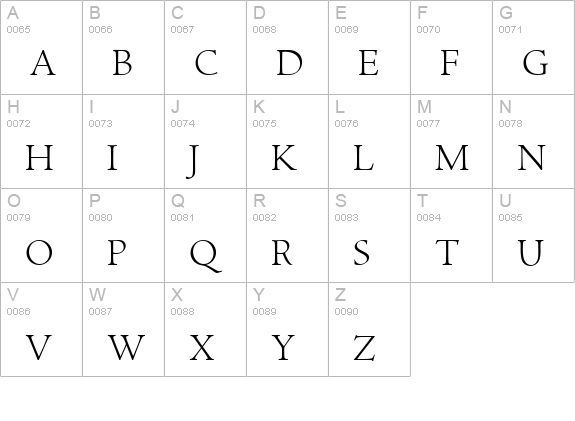
Spira-Light is a refined, elegant variant in the Spira typeface family \xE2\x80\x94 well suited to elegant body text, refined sub-headings, and luxury branding.
Introducing Spira-Light, a mesmerizing font that effortlessly captures the essence of elegance and modernity. With its delicate curves and refined details, this font exudes a sense of sophistication that is sure to elevate any design project to new heights. Spira-Light is the perfect balance between simplicity and intricacy, creating a harmonious blend that is both visually striking and highly legible. Its graceful letterforms dance across the page, creating a captivating rhythm that draws the eye and commands attention. This remarkable font is not just visually appealing; it also offers unparalleled versatility. Whether you're designing a logo, creating a website, or crafting a stunning brochure, Spira-Light will effortlessly adapt to any context, ensuring your message is conveyed with clarity and style. But what truly sets Spira-Light apart is its accessibility. We believe that great design should be available to everyone, which is why we are thrilled to offer this exceptional font for free. Yes, you read that right – Spira-Light can be freely downloaded at FontsMarket.com, making it accessible to designers, creatives, and enthusiasts alike. So why wait? Elevate your designs with the timeless beauty of Spira-Light. Download it today and let your creativity soar.